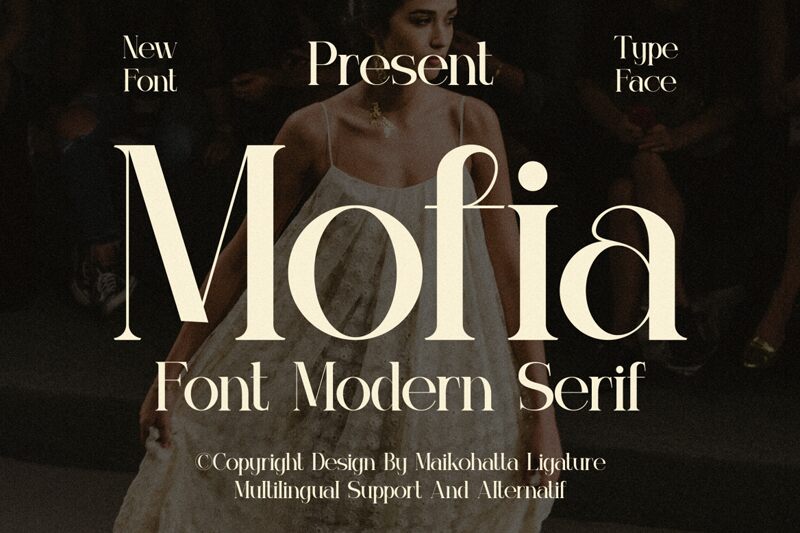
Mofia font family is a free modern serif typeface designed by Gilang Ternadho. The serif font is elegant, graceful, and brings with it a contemporary feel with a classic touch. Its stylish high-end appeal make it a suitable choice for editorial designs where text needs to have a visual impact. The two font styles created are delicate and refined, and they can both be combined together in a design or used separately.
Some of the most common use cases for Mofia include fashion magazines, posters, signage, album covers, and website headers. Additional possible uses are business cards, labels, invitations, packaging, banners, and brochures. The font can also be paired with other free fonts, especially sans serif ones.